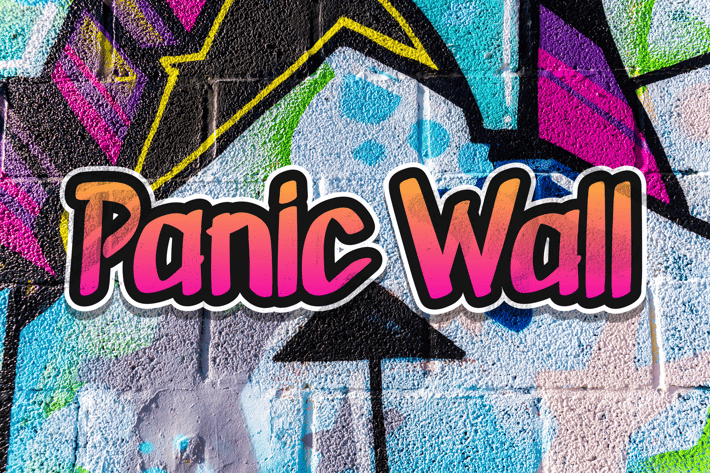
Panic Wall - Graffiti Font
Don't panic if you got Panic Wall in hand. You are ready to conquer the world of youth with it. The straight to the point shape of the letters, bring the brave vibes of the young generation have to your current project.
Suit perfectly for young age segmented magazine, poster, movie title, music poster, youtube covers, youtube thumbnails, social media page covers and so on...
Basic Latin A-Z and a-z, Numbers, Punctuation